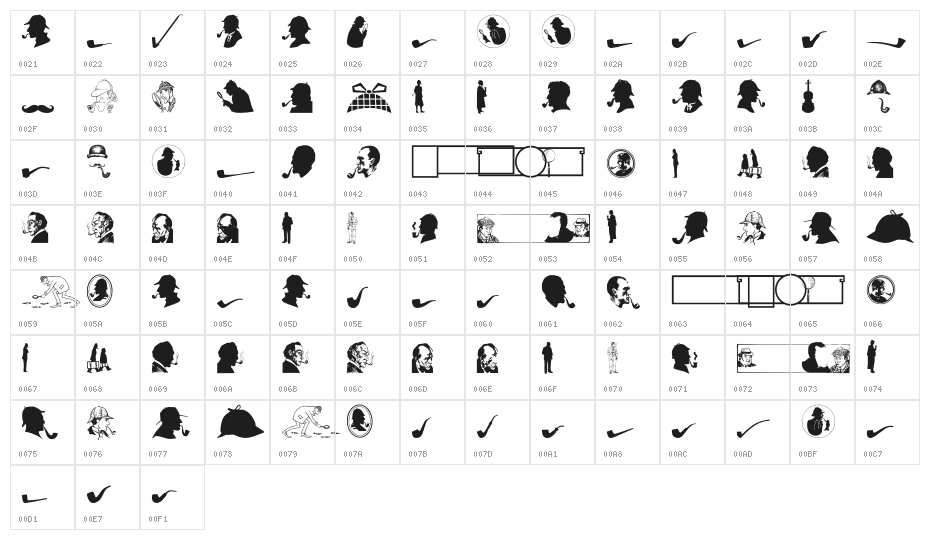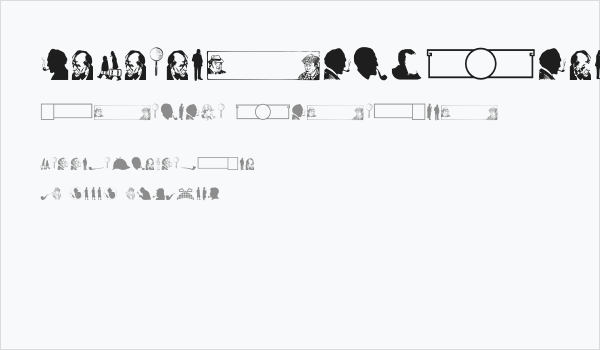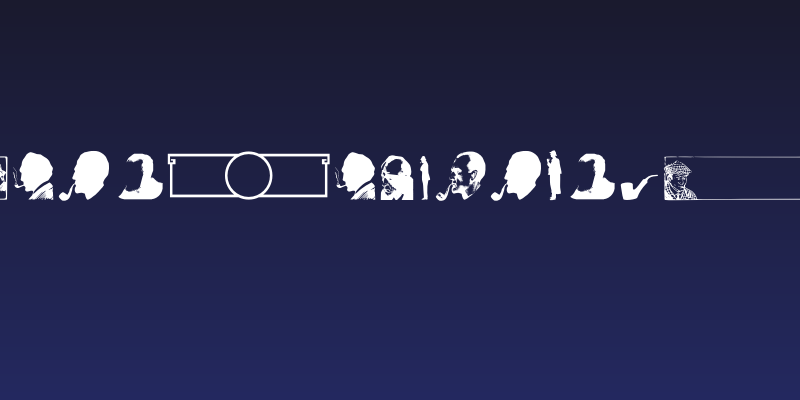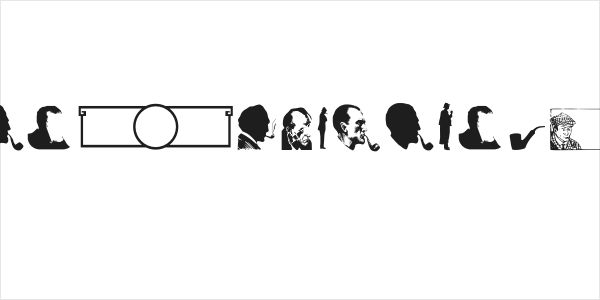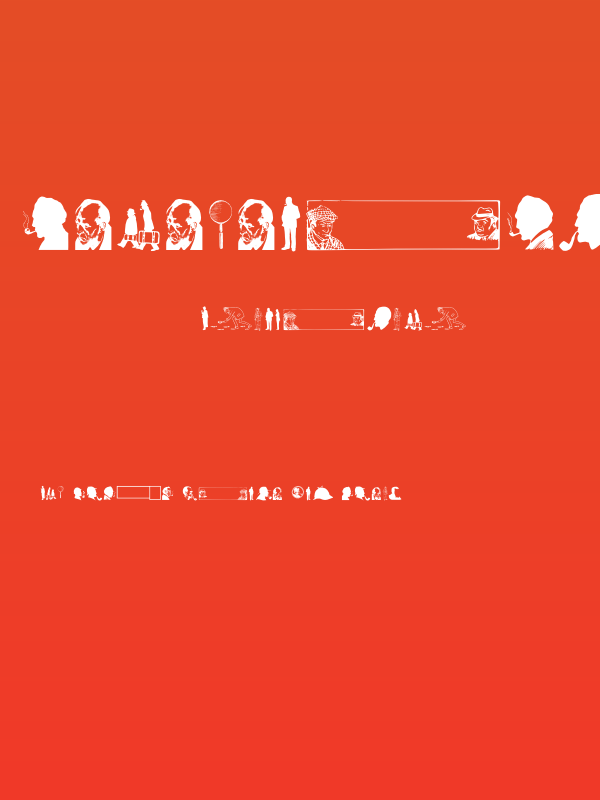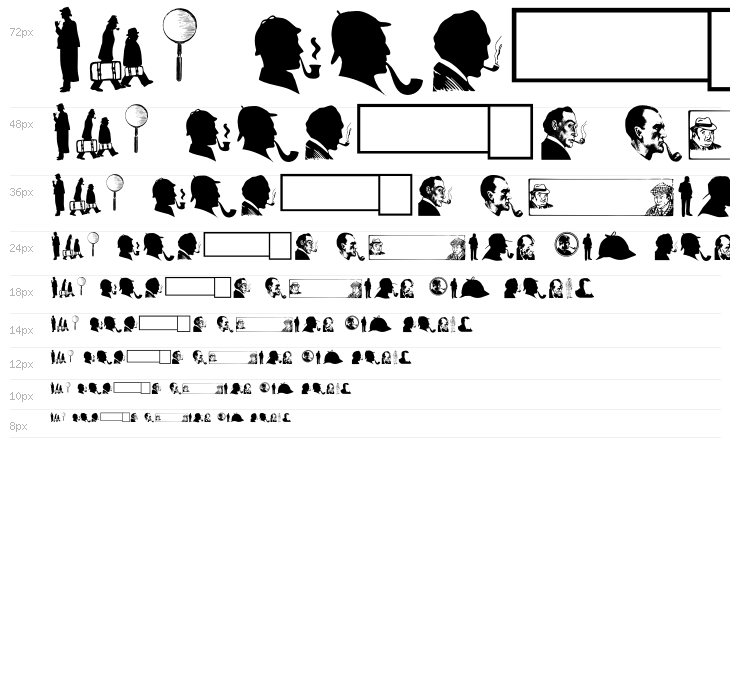
JMHMemoriasDingbats-Regular Font
JMHMemoriasDingbats-Regular Description
This collection of dingbats features a series of silhouettes and illustrations inspired by detective themes. The images include profiles of a detective with a pipe, magnifying glasses, and various figures in classic detective poses. The style is reminiscent of vintage detective stories, with a focus on mystery and intrigue. The illustrations are detailed and capture the essence of classic detective imagery, making them ideal for projects that require a touch of mystery or a nod to classic literature. The characters are depicted in various activities, such as examining clues or pondering over a case, adding a dynamic element to the set.
| Use Case | Logos, Decorative elements, Themed graphics |
| Proposed Projects | Ideal for mystery-themed invitations, book covers, or event posters. Suitable for creating themed decorations or educational materials related to detective stories. |